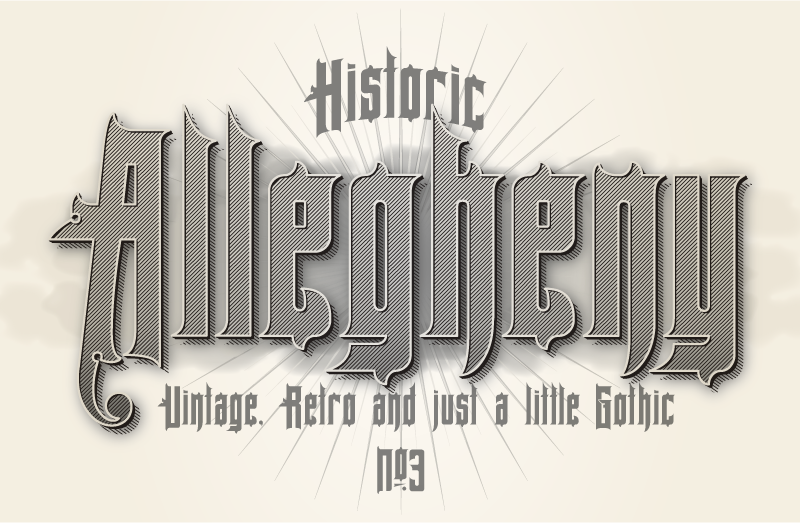
Note by Pilaster Davy | |
The third in a series of Sanborn map inspired fonts, this time based on the glyphs from a 1906 insurance map for Allegheny, Pennsylvania. As with Galveston & Spartanburg, the font has limited language support, with a view to expanding this at a later date and is served 100% free and as is. (Make sure you keep the Caps lock off. Allegheny is designed to use upper and lowercase glyphs and is quite unpleasant in all caps due to the decorations) Should you have the good fortune to be able to use this font for commercial purposes, you gain good karma by sharing your good fortune and clicking the donate button, found just beneath the download button on this page. My thanks once again go to the naughty mods who oversee these pages for their encouragement, support and advice in getting these endeavours off the ground. Enjoy. |